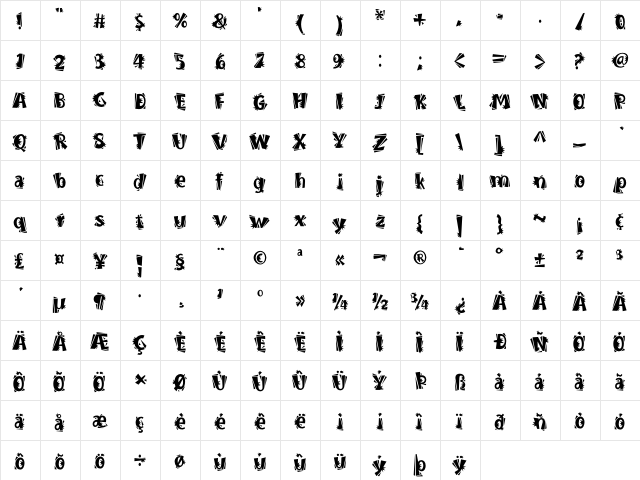
BurweedICG Thorny Font Preview
BurweedICG Thorny
Design Context for BurweedICG Typeface
BurweedICG is a composed and adaptable typeface that performs quietly and consistently across a wide range of design contexts.